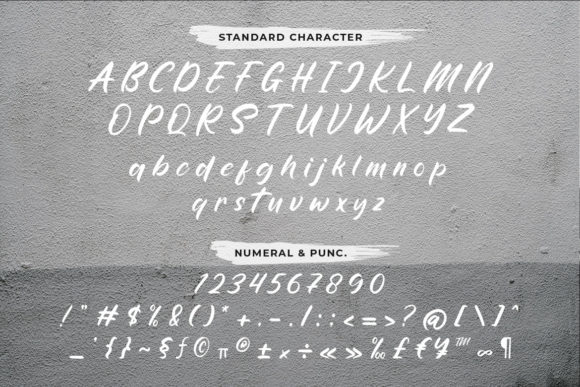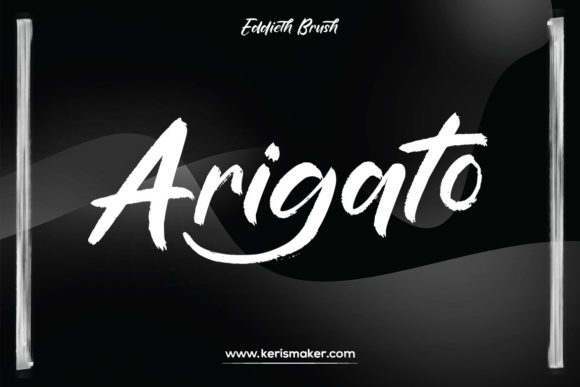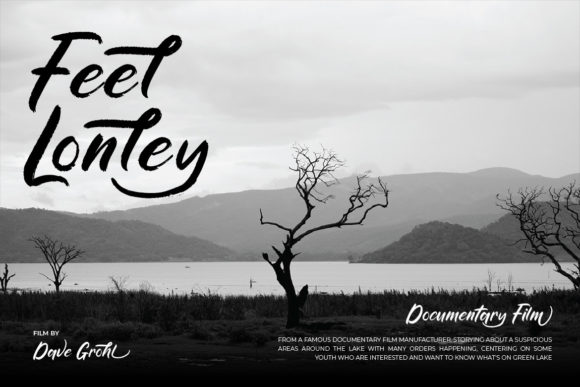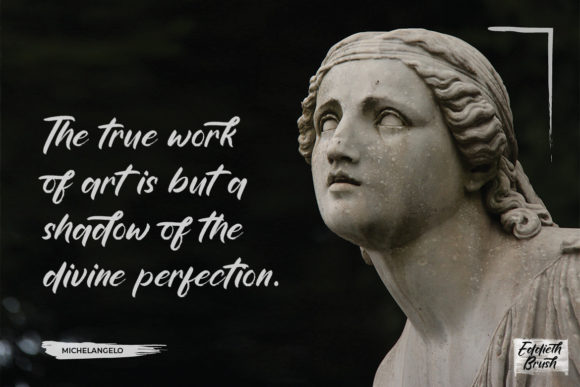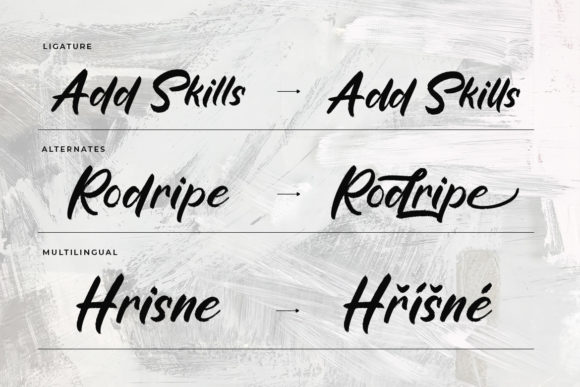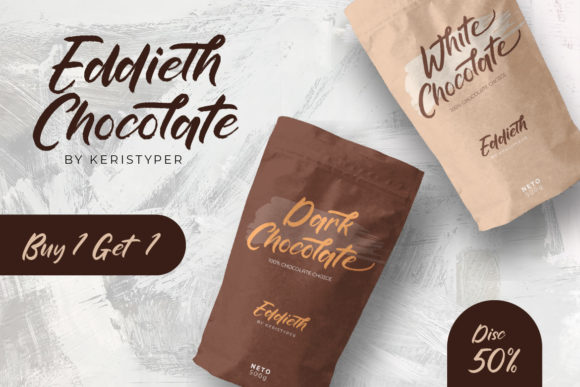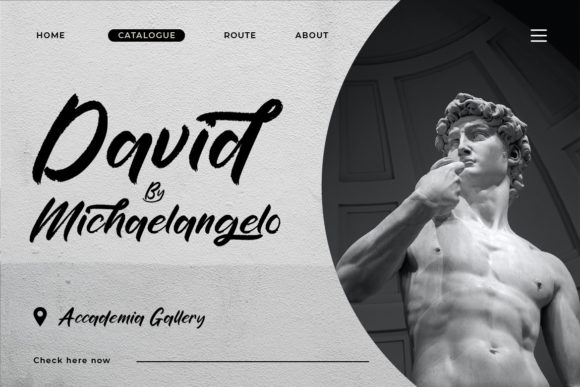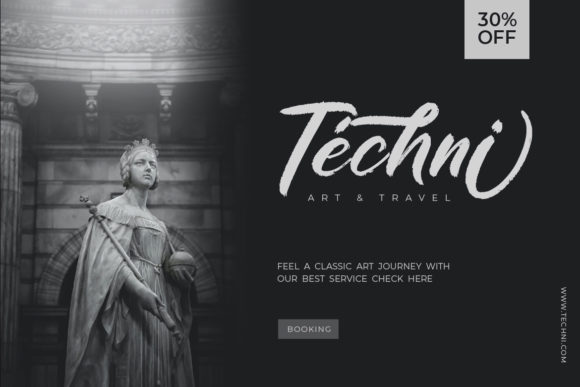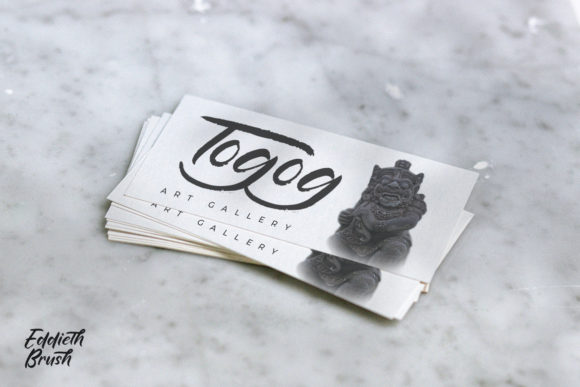
Eddieth Font
About Eddieth Font
Eddieth is a brushed and cool handwritten font that injects a sense of style and creativity into a variety of crafting ideas. Its distinctive brush strokes make it a versatile choice, elevating projects ranging from cards and branding to labels and beyond.
The brushed quality of Eddieth gives it a modern and dynamic aesthetic, making it particularly suitable for projects that aim to capture attention and convey a cool vibe. Whether applied to cards, such as greetings or invitations, the font adds a touch of personality and flair, turning simple designs into visually captivating creations.
In branding, Eddieth becomes a powerful tool to establish a unique and contemporary identity. The cool handwritten style sets brands apart, creating a visual language that resonates with modern audiences. The font’s versatility ensures that it can adapt to various industries and design themes, adding a brush of creativity to logos and promotional materials.
For labels, Eddieth offers a fresh and stylish option. Its cool handwritten appearance enhances product packaging, making labels not only informative but also visually appealing. Whether used for food products, cosmetics, or other goods, the font contributes to creating labels that stand out on the shelves.
Eddieth’s versatility extends to a wide range of crafting ideas, providing a cool and brushed touch to diverse projects. Its dynamic strokes make it well-suited for DIY crafts, scrapbooking, and creative endeavors where a touch of handmade charm is desired. The font seamlessly integrates into various crafting materials, enhancing the overall aesthetic.
The cool handwritten nature of Eddieth makes it adaptable to digital applications as well. From social media graphics to website headers, the font brings a contemporary and artistic feel to digital designs, ensuring a cohesive and stylish visual presence.
In conclusion, Eddieth is not just a font; it’s a creative companion that elevates crafting ideas with its brushed and cool handwritten style. Whether applied to cards, branding, labels, or various crafting projects, Eddieth brings a touch of modernity and creativity that enhances the overall aesthetic, making it a valuable asset in the crafting and design toolkit.